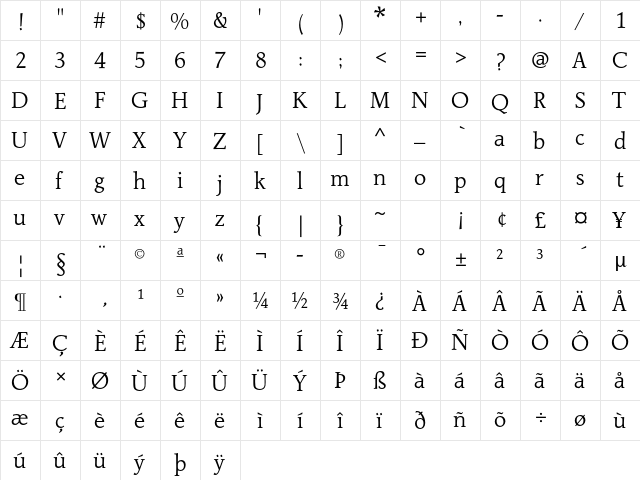
Jante Antiqua Std Regular
| Designer | Poul Sn |
Design Context for Jante Antiqua Std Typeface
Jante Antiqua Std offers clean, dependable letterforms without strong stylistic allegiance, making it a practical choice for designers who need flexibility.